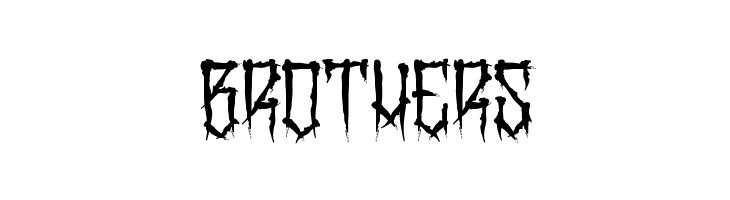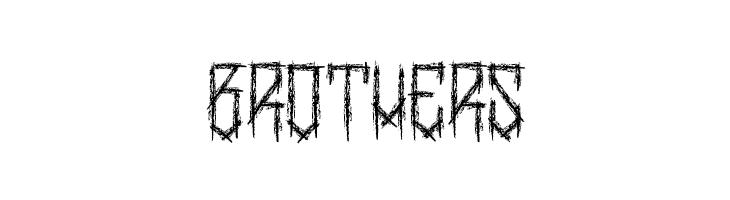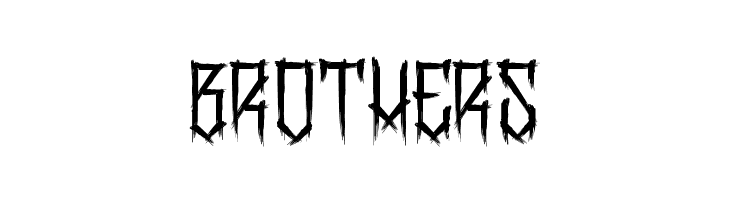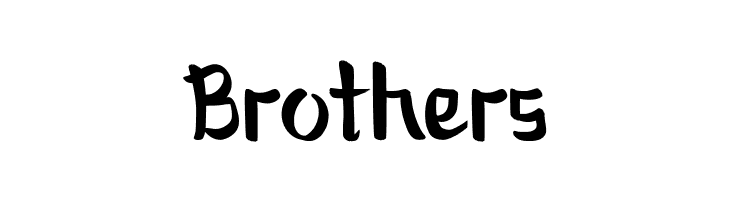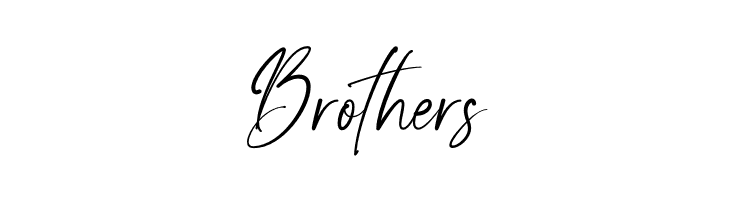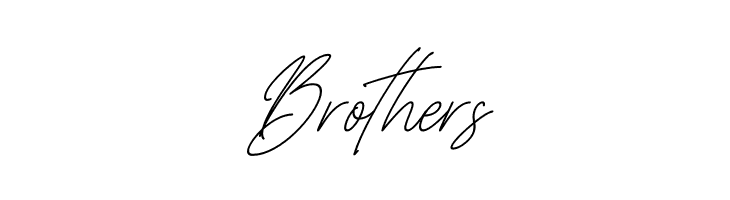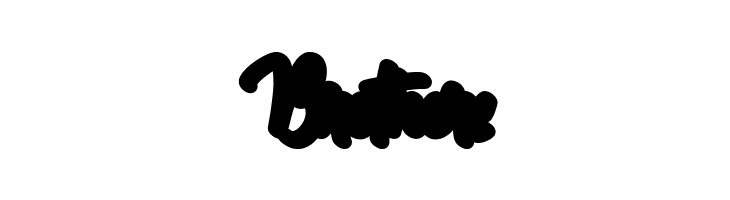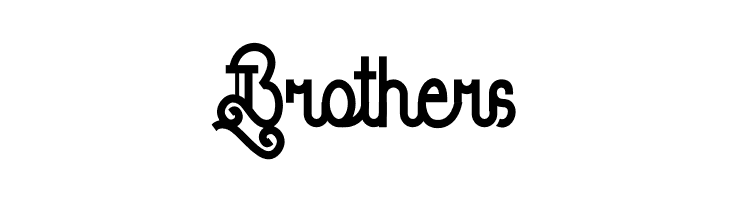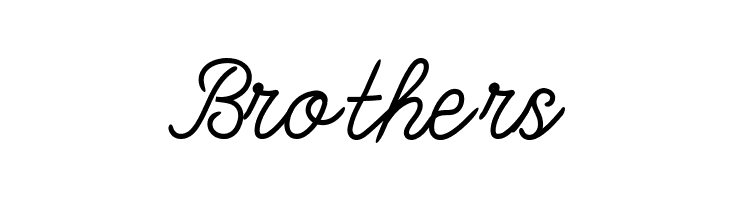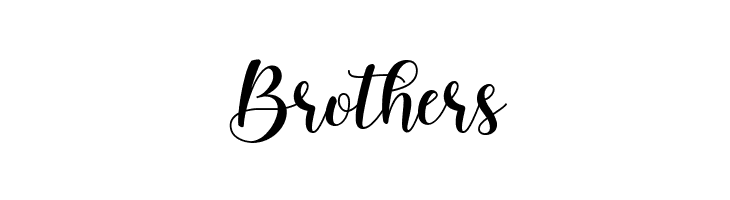
A bold, cursive font with a dynamic and flowing style.
A bold, slanted, and energetic font with a playful style.
A modern, elegant font with thin, elongated letterforms and high contrast strokes.
A decorative font with intricate swirls and flourishes, perfect for artistic projects.
An elegant script font with smooth, flowing lines and a sophisticated appearance.
A playful, casual script font with smooth curves and rounded edges.
A modern, high-contrast font with artistic, elongated characters.
A dynamic, cursive font with fluid strokes and a handwritten style.
A monoline, slanted script font with an elegant and fluid style.
A sophisticated cursive script with elegant, flowing lines and ornate flourishes.
A jagged, horror-themed font with sharp, irregular edges.
A jagged, horror-themed font with a scratchy, distressed appearance.
A jagged, horror-themed font with sharp, irregular strokes.
A decorative and vintage-style font with ornate uppercase letters and complementary lowercase characters.
A bold, decorative font with intricate details and ornate flair.
A distressed, textured font with a grungy, hand-drawn style.
A bold, distressed font with a grunge, hand-painted style.
A modern, geometric font with clean lines and consistent stroke width.
A graceful script font with flowing, cursive letters and elegant flourishes.
A lively and elegant script font with flowing, cursive letterforms.
A bold, hand-drawn font with dynamic strokes and an artistic flair.
A retro-style font with tall, narrow characters and sharp angles.
A bold, playful script font with interconnected letters and a casual, handwritten feel.
( Fonts by Ditoollis Project - Muhammad Faizal Said - Personal-use only. For commercial use please contact owner. )
A dynamic script font with elegant, flowing strokes and a modern calligraphic style.
A bold, geometric font with a strong, blocky appearance.
A bold, geometric font with angular shapes and a futuristic aesthetic.
( Fonts by Graphue - Personal-use only. For commercial use please contact owner. )
A lively and expressive handwritten font with fluid strokes and playful elegance.
( Fonts by Graphue - Personal-use only. For commercial use please contact owner. )
A dynamic and playful handwritten font with fluid strokes.
A bold icon set font with business and finance pictograms.
( Fonts by Muhammad Sirojuddin - lettersiro.com - Personal-use only. For commercial use please contact owner. )
A thorny, jagged decorative font with an intense and edgy style.
A bold, retro-inspired font with textured diagonal lines and a playful aesthetic.
Bold, geometric pictogram set for prohibition signage.
A whimsical, hand-drawn style font with playful and irregular characters.
A bold, decorative font with stars and stripes, ideal for patriotic themes.